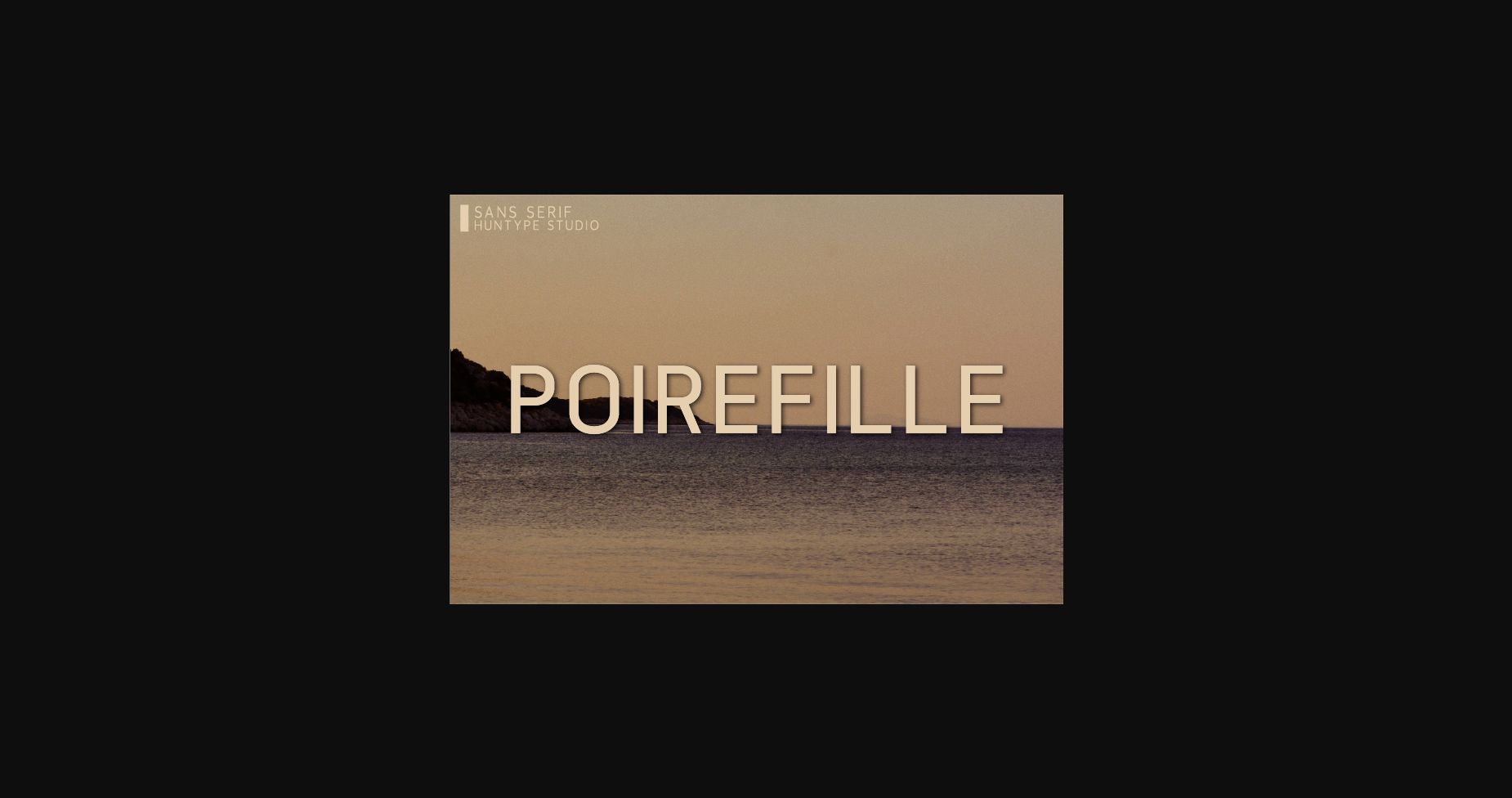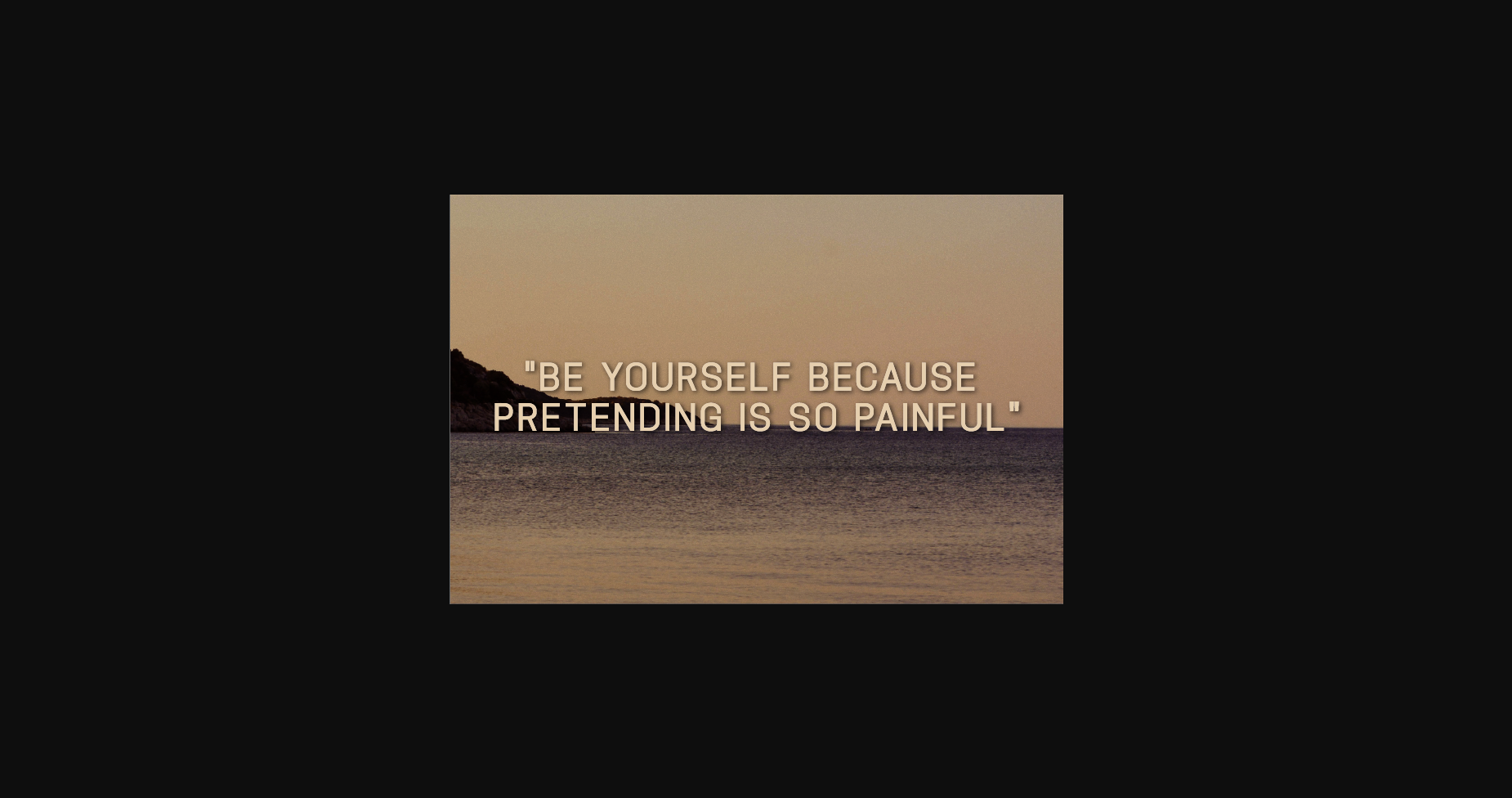
About Poirefille Font
Poirefille is a neat lettered and clean sans serif font. It can easily be matched to an incredibly large set of projects, so add it to your creative ideas and notice how it makes them stand out!